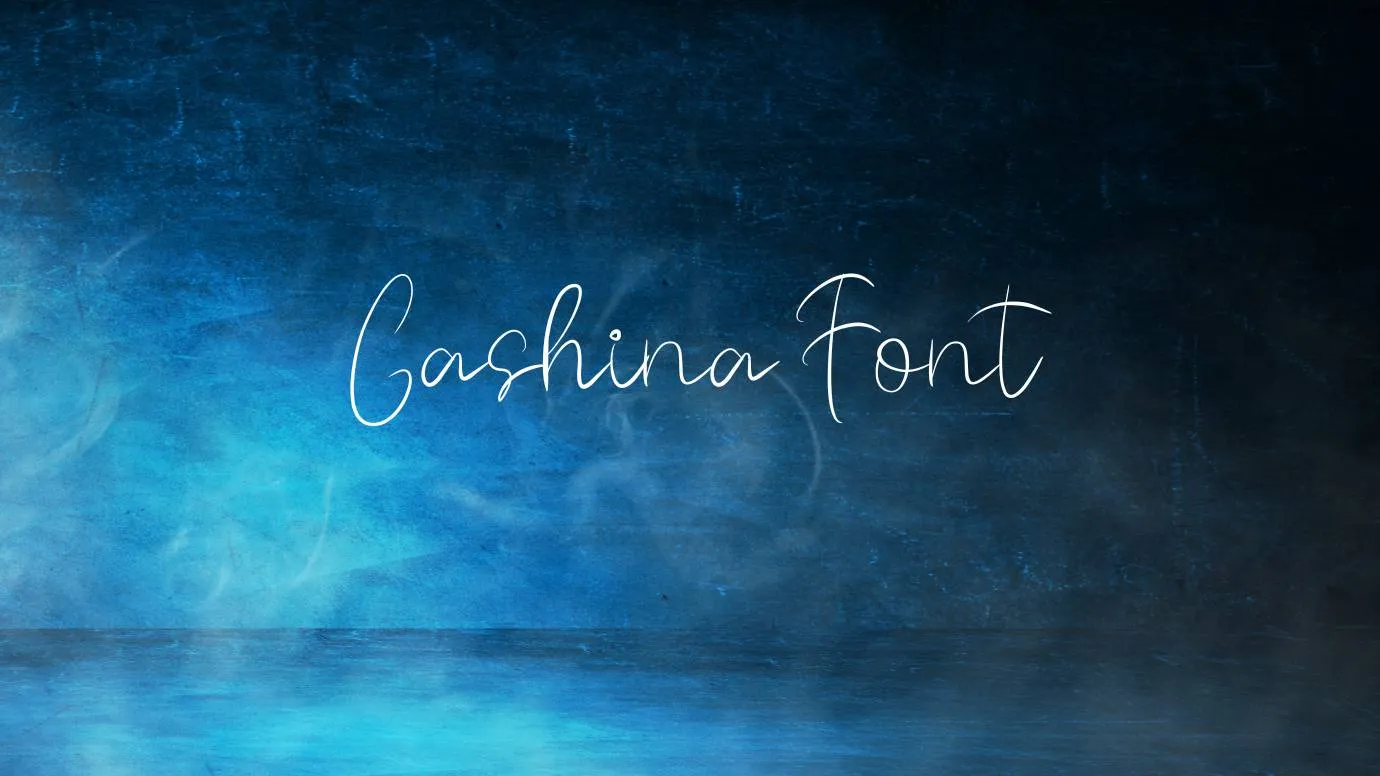
Gashina Font Family is a modern typeface that has an elegant style. It comes with script hand-drawn characters. It was designed by a famous font studio known as Stellaris Studio. Gashina typeface has uppercase, numbers, and some special characters.
Gashina Font
NameGashina Font
TypeHandwritten
DesignerStellaris Studio